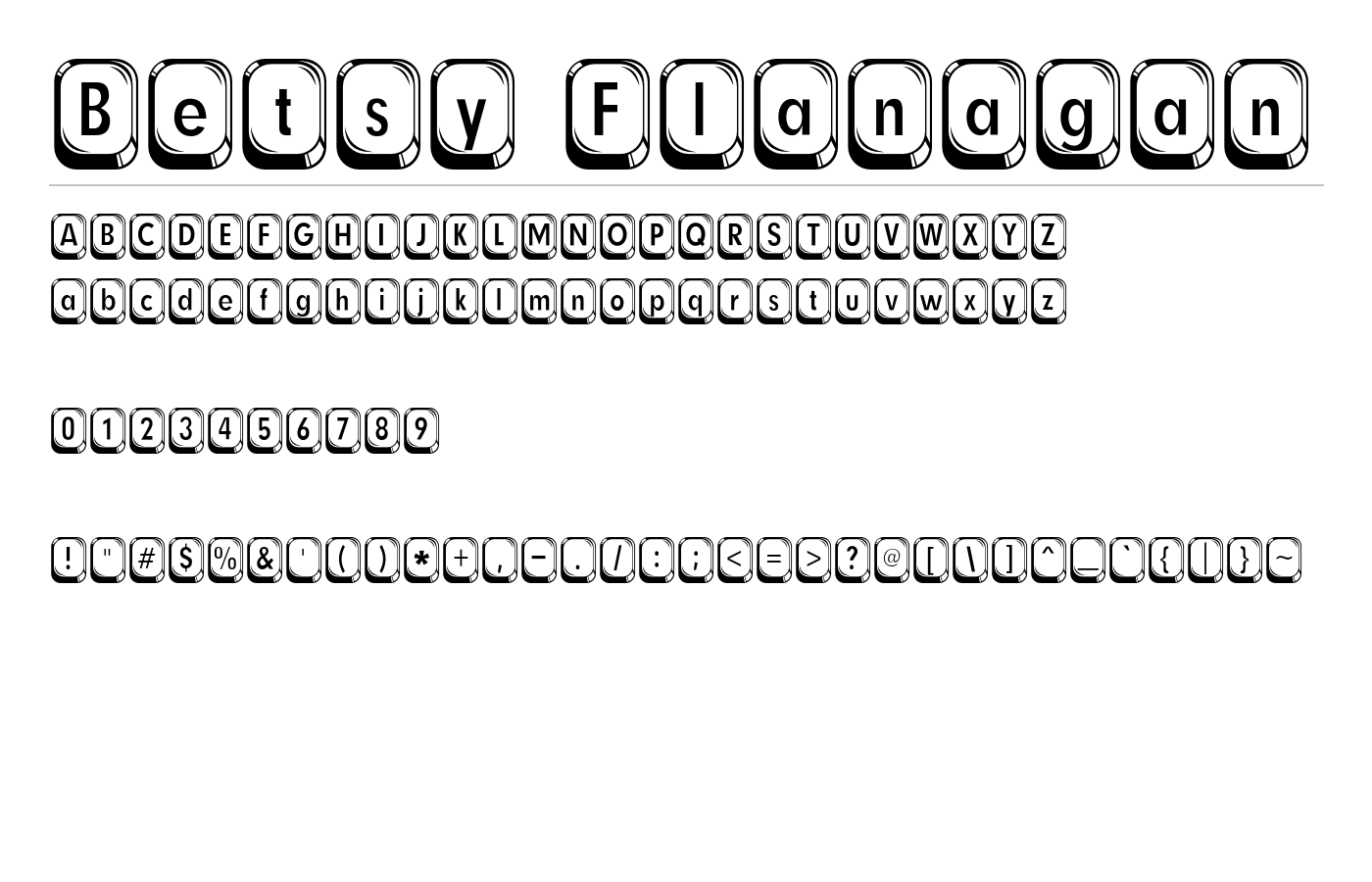
Betsy Flanagan is a playful and bold display font characterized by its blocky, rounded rectangular shapes with a three-dimensional shadow effect, giving it a fun, retro vibe. Its clean, geometric letterforms make it ideal for eye-catching headlines, logos, and creative packaging that aim to convey a friendly and quirky personality. This font stands out best in designs where a distinctive, approachable, and slightly vintage feel is desired.
Betsy Flanagan Font
About Betsy Flanagan Font
| Font family | Betsy Flanagan Font |
| Designer | Ray Larabie |